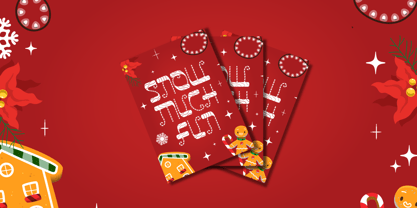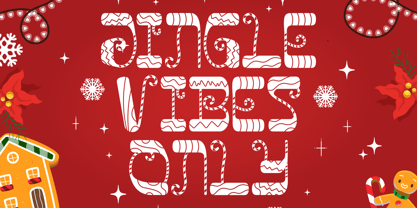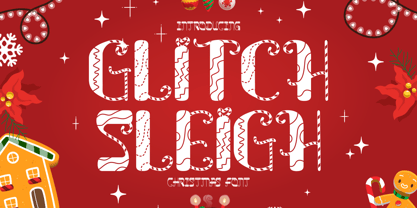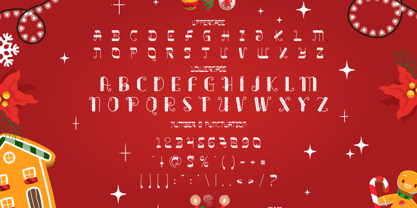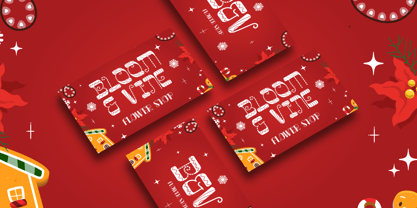
Glitch Sleigh
by Shanaf
The Glitch Sleigh Font Family was designed by Yesie Erma Yunita and published by Shanaf. Glitch Sleigh contains 1 styles.
Glitch Sleigh is a delightful and quirky Christmas font that captures the essence of holiday cheer. Every letter is uniquely decorated with candy-cane swirls, stitched frosting lines, and playful festive textures, creating a whimsical and handcrafted appearance. The font integrates decorative motifs like peppermint curves, icing squiggles, and snowy outlines that feel straight from a Christmas bakery. The high-contrast white-on-red color scheme paired with rich, seasonal visuals enhances its appeal for holiday-themed designs. Perfectly balanced and readable despite its joyful complexity, Glitch Sleigh brings a sense of warmth and fun to any layout.
This font is ideal for a wide array of festive applications. From holiday packaging and greeting cards to Christmas posters, party invitations, and seasonal branding, Glitch Sleigh delivers charm and visual impact. It includes full uppercase and lowercase alphabets, numbers, and punctuation, all consistently styled to maintain the holiday vibe. Whether you're designing for digital or print, this font adds unmistakable character and joy to every project with a holiday spirit.
Designers: Yesie Erma Yunita
Publisher: Shanaf
Foundry: Shanaf
Design Owner: Shanaf